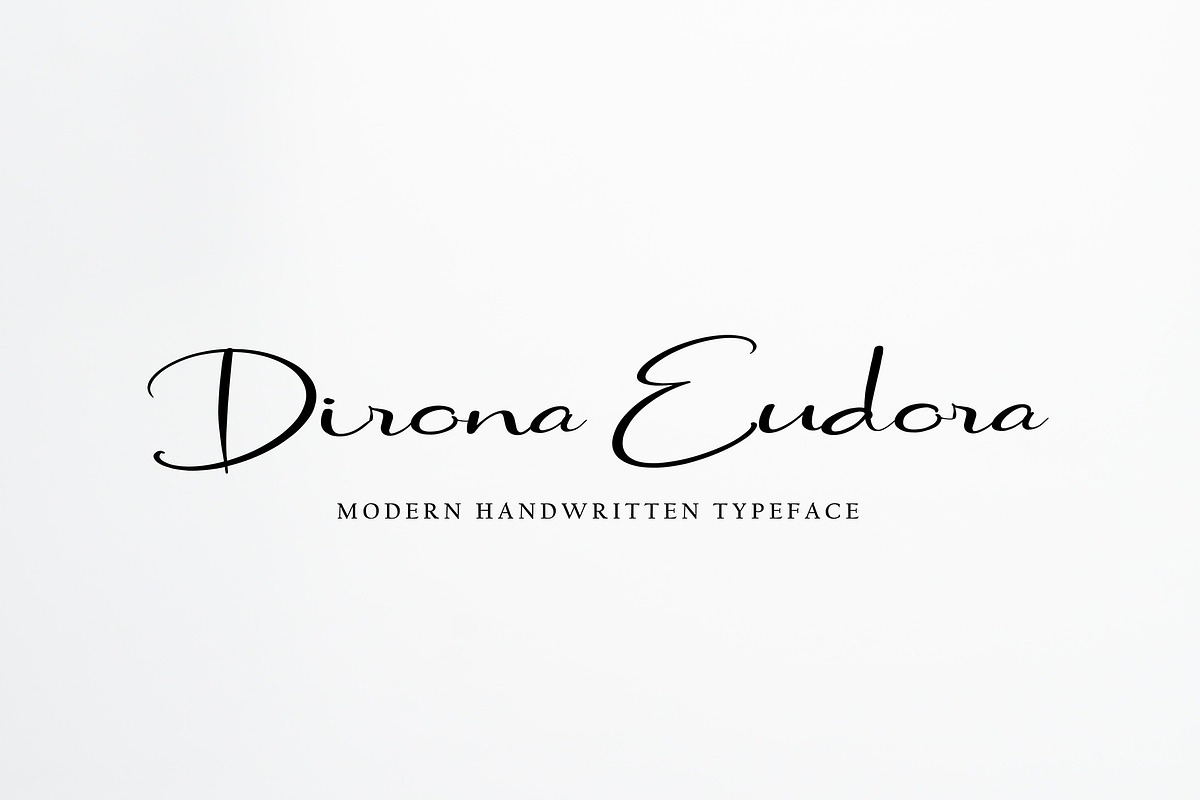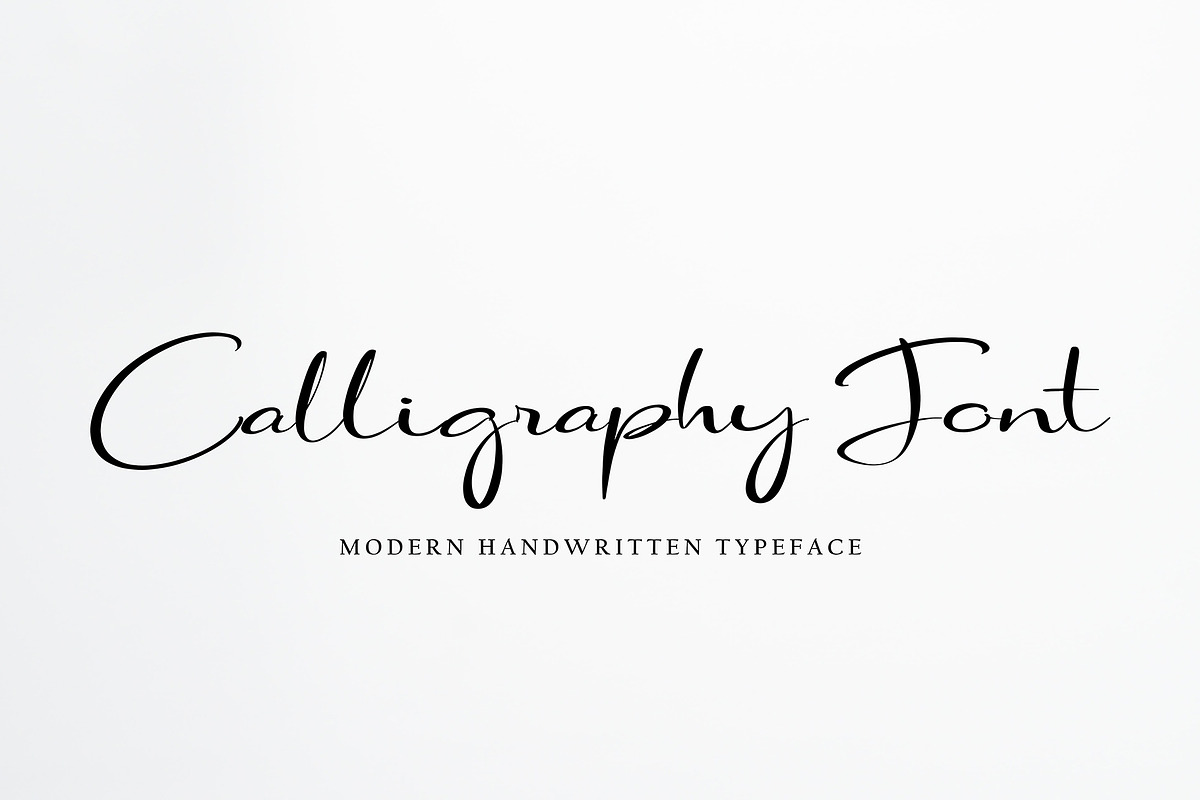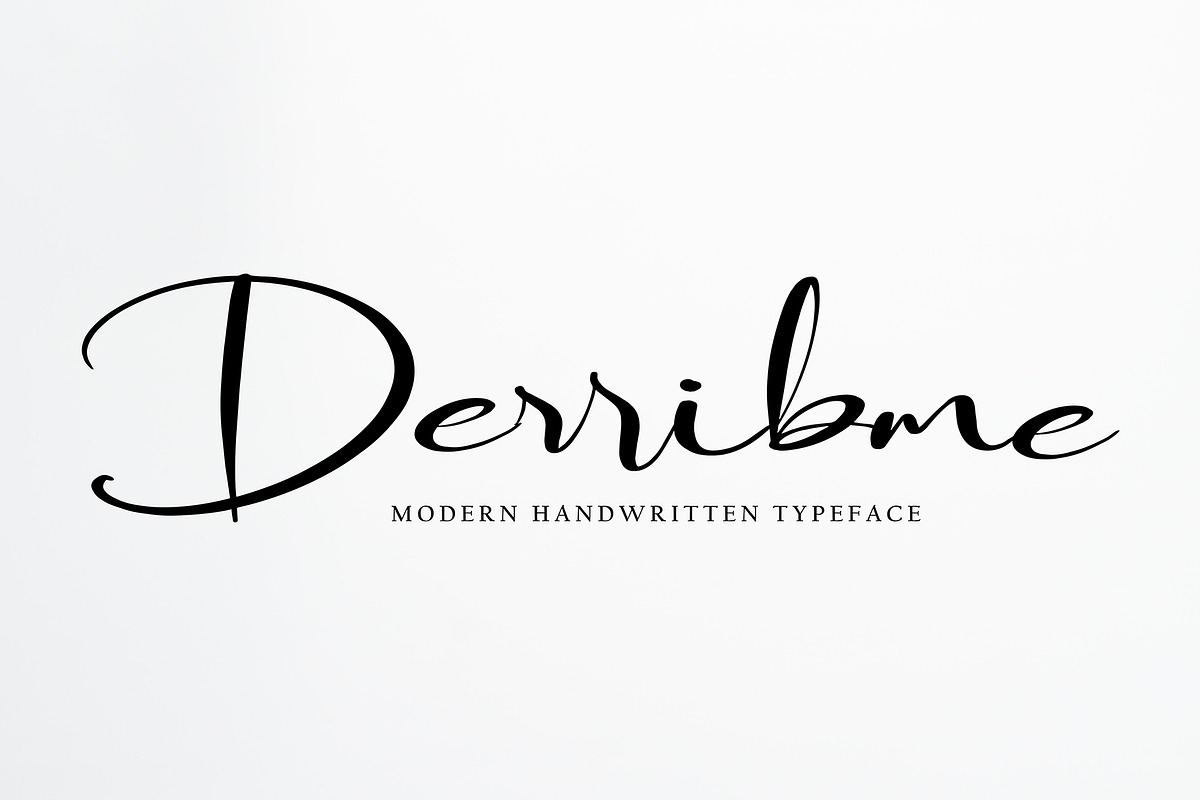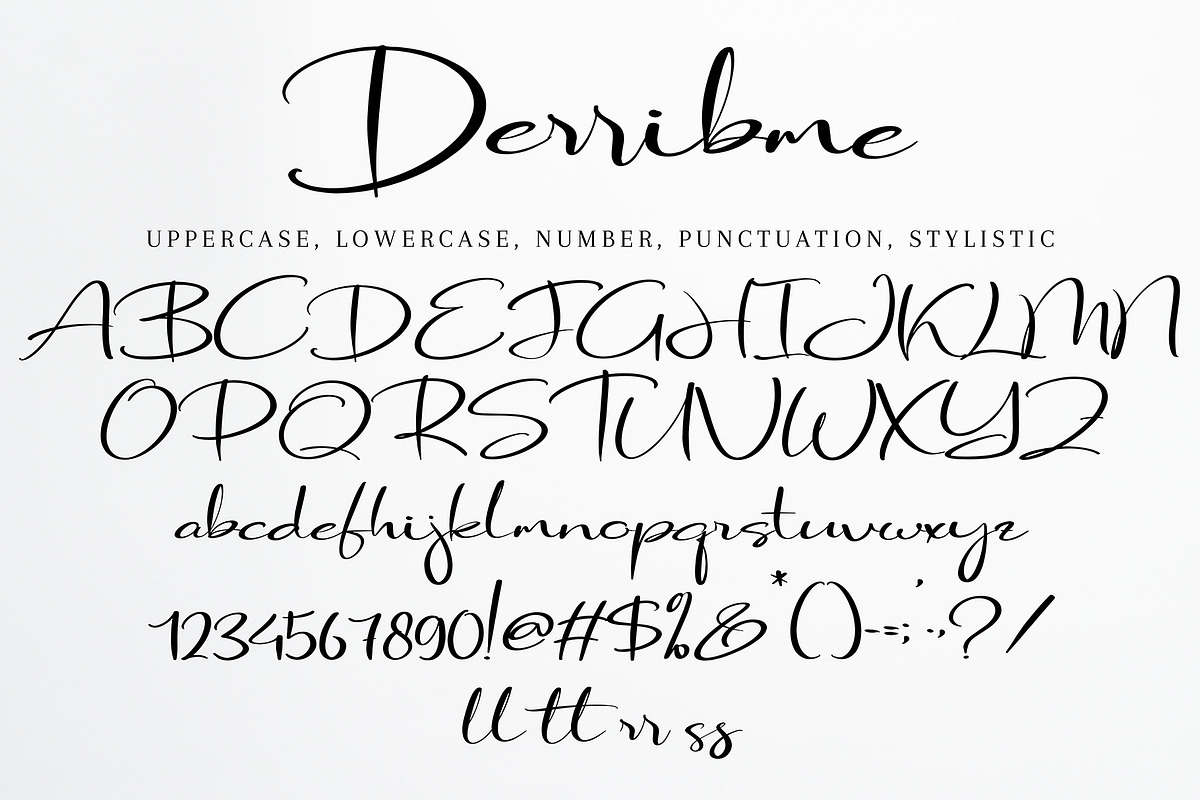
Derribme
Derribme with new style, this font will perfect for many different project ex: quotes, logo, blog header, poster, banding, letter, invitation, stationery, etc...